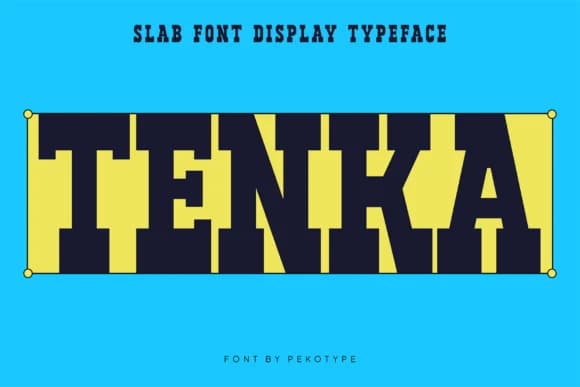
1 / 8About Tenka Font
Tenka by pekotype is a condensed slab serif that brings serious weight to display work. The typeface sits somewhere between a heavyweight boxer and a streetwear logo, with thick, solid letterforms and sharp, blocky serifs that command attention without sacrificing legibility at any scale.
This font handles sports team branding, athletic event posters, and streetwear label packaging with natural confidence. You'll find it equally at home on merchandise tags, large-format competition banners, and fitness studio signage. The all-caps structure works especially well for social media graphics where impact matters, or anywhere you need a headline that speaks with genuine authority. Sports bars, schools, competitive athletic brands, and event organizers all benefit from its direct, muscular presence and remarkable readability.
- Sturdy, Confident, Typeface
Tenka Font is a slab serif font that shines as a display or heading face. Pair it with a clean sans-serif or serif font for body text β the contrast creates a clear hierarchy while the two styles stay balanced and easy to read.
Tenka Font
by pekotype